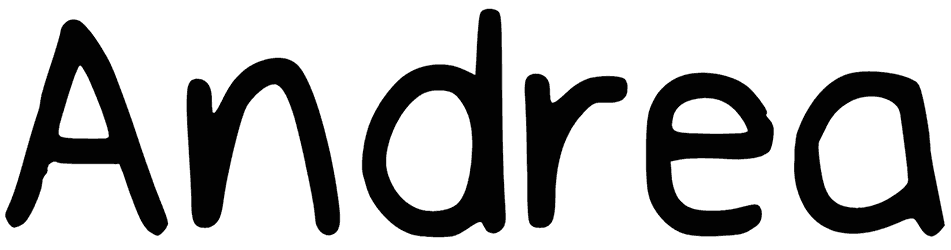
Andrea Font
If you want to bring a casual and modern vibe to your layout, this handwritten font will do this. Andrea has a modest pen-lettered face that can be used for many subjects. You can set this script font on your creative designs, from school posters, social media posts, games, or the like, and give an appealing mood to them.